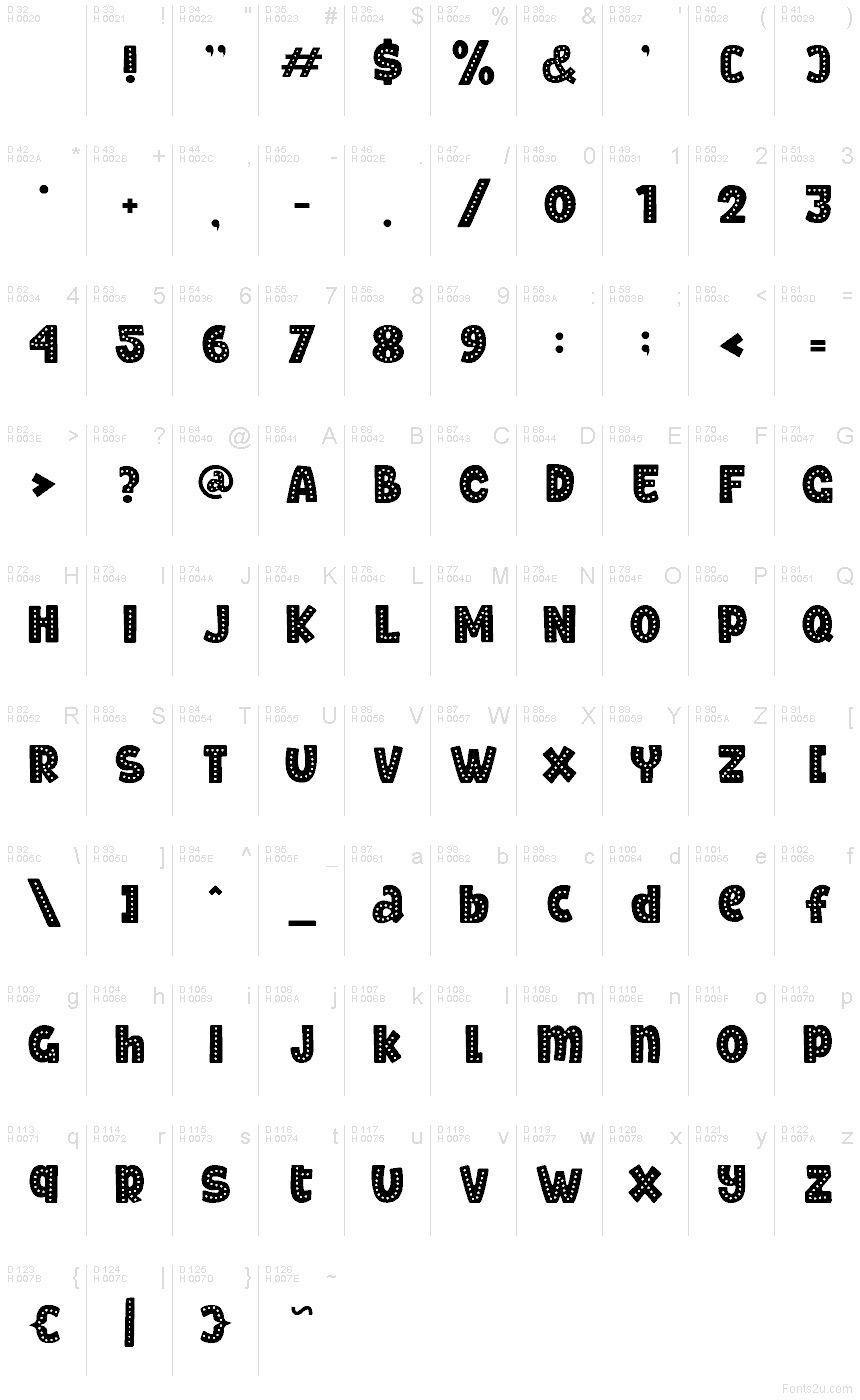
Study Symbol Dot
Study Symbol Dot font is a rounded, decorative font by PutraCetol Studio with a modern feel and a whimsical appearance. The display handwriting typeface features flat, consistent lines in variable lengths and clear edges. Its highly stylized shape gives it a distinctive appeal. No two characters are identical even though the style is not cursive.